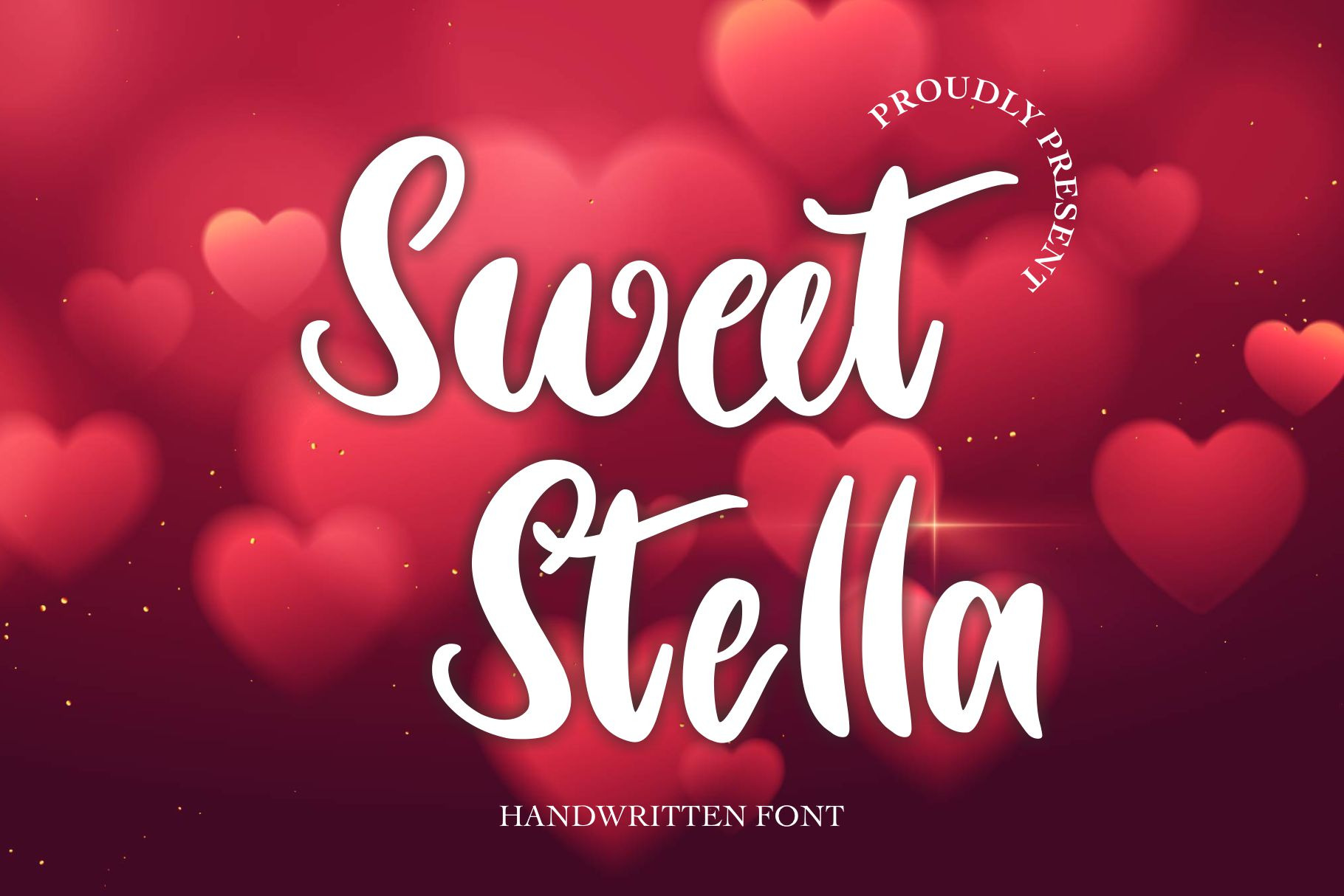
Sweet Stella | Handwritten Font
Sweet Stella is an exquisite display font that is perfect for adding a touch of elegance and sophistication to any project. Its attractive curves and lines create a beautiful design with a timeless appeal. Keep in mind that the font is PUA encoded, meaning that you can access all delightful glyphs and swashes effortlessly.
- Support Multilingual; ä ö ü Ä Ö Ü ß ¿ ¡